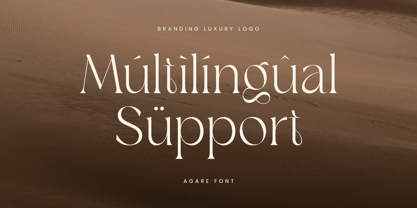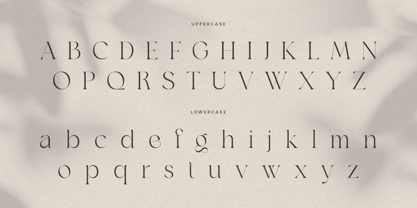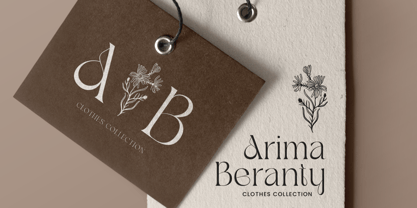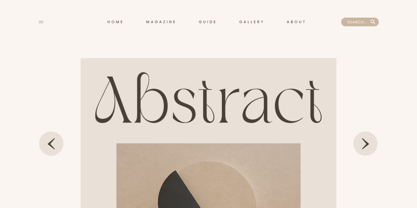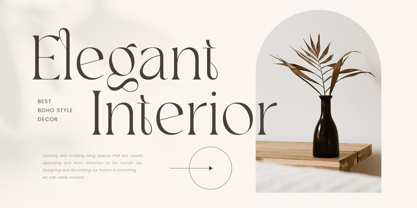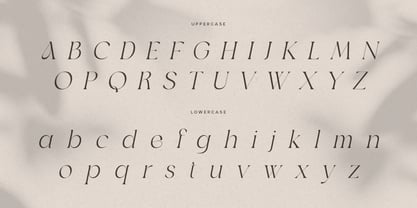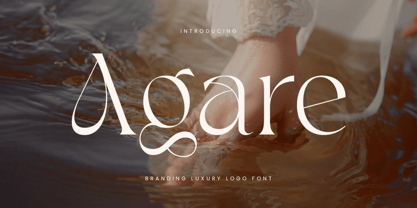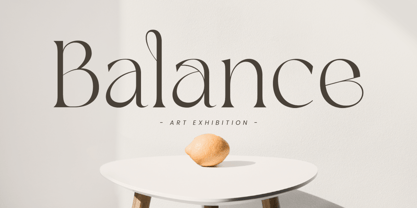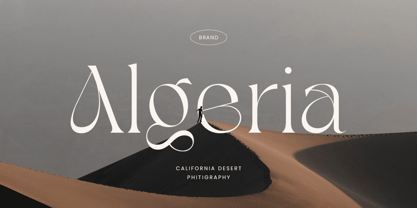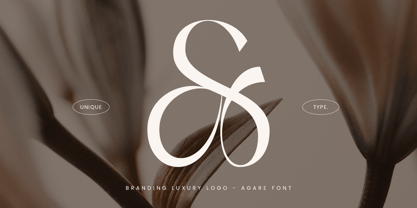
Agare
The Agare Font Family was designed by Zamroni Hamzah and published by Sensatype Studio. Agare contains 2 styles and family package options.
Agare - Branding Luxury Font
Agare is a font designed to bring a touch of luxury to your branding projects. Inspired by timeless elegance, this font is perfect for high-end brands looking to establish a strong and sophisticated identity. Whether you're designing logos, packaging, or marketing materials, Agare ensures your message is conveyed with class and refinement.
The luxurious details and stylish curves of Agare make it stand out in a world of ordinary fonts. It’s the ideal choice for projects that demand a premium look and feel. From fashion labels to luxury goods, Agare adapts effortlessly, ensuring your brand exudes confidence and quality.
Crafted with versatility in mind, Agare is not just beautiful but also practical. With its unique alternative characters and multilingual support, this font is ready to meet the needs of any project, adding an extra layer of creativity to your designs.
Agare Branding Luxury Font Features:
• Unique Alternative Characters Ready
• Punctuation, Number, and Symbol
• Uppercase and Lowercase
• Multilingual Support
• Opentype Features